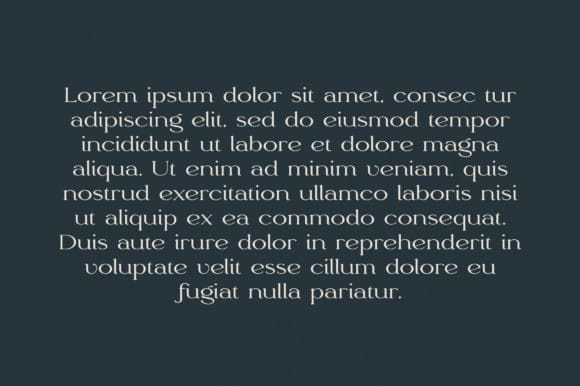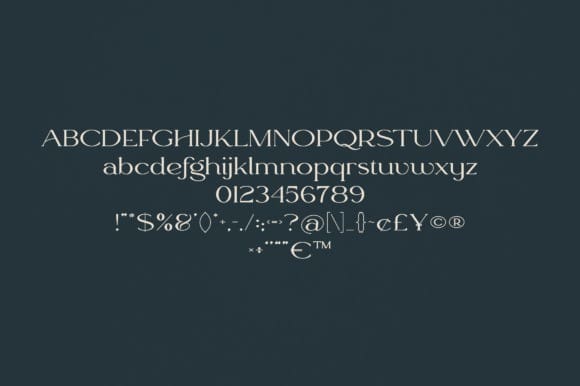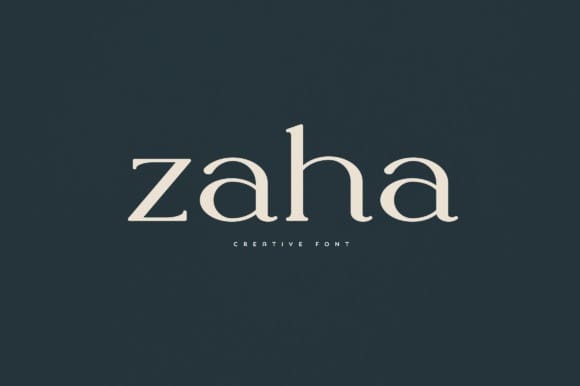
Zaha Font
Zaha Font is an elegant and versatile font that will make your typography truly unique! It will enchant every logo, branding, headline, or plain text!